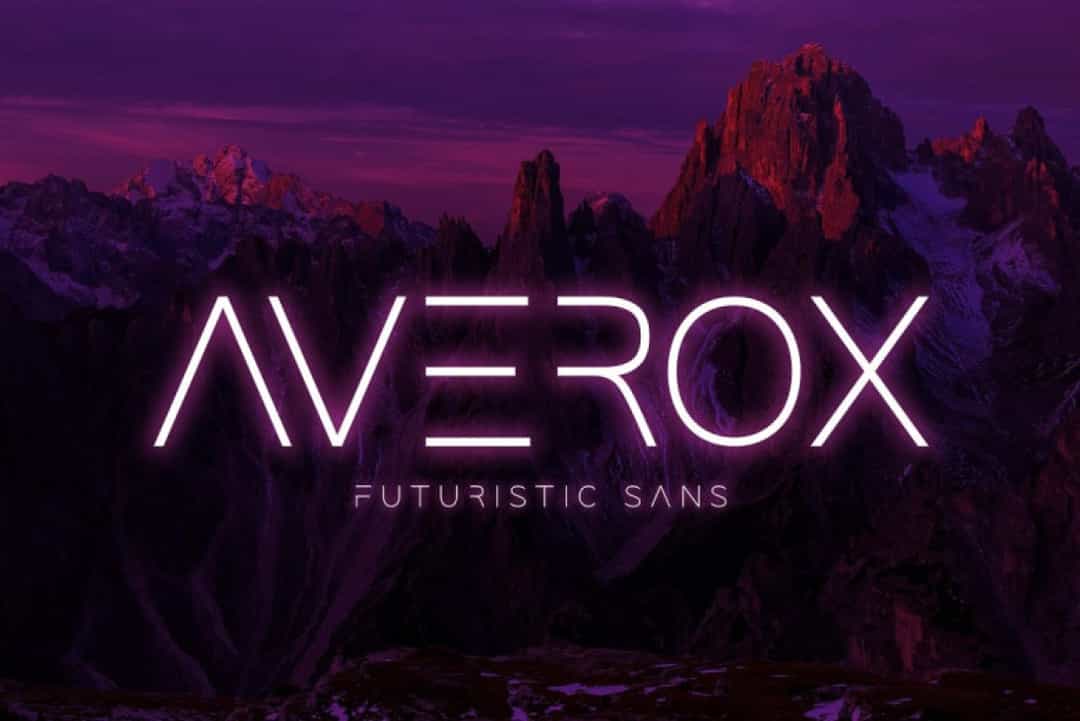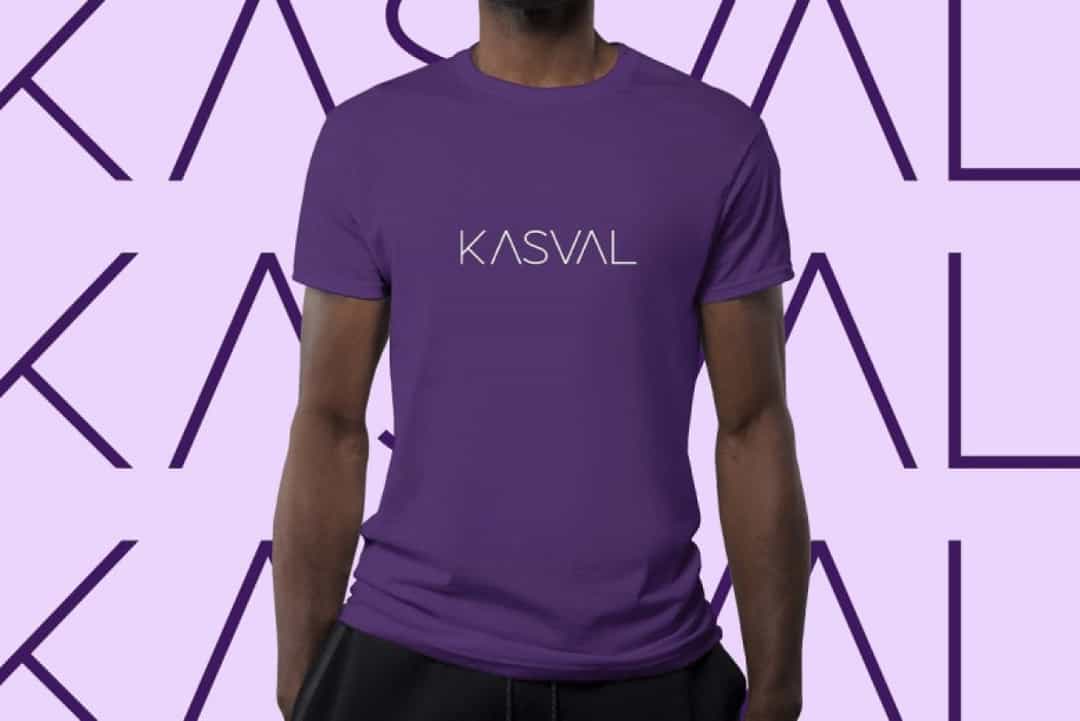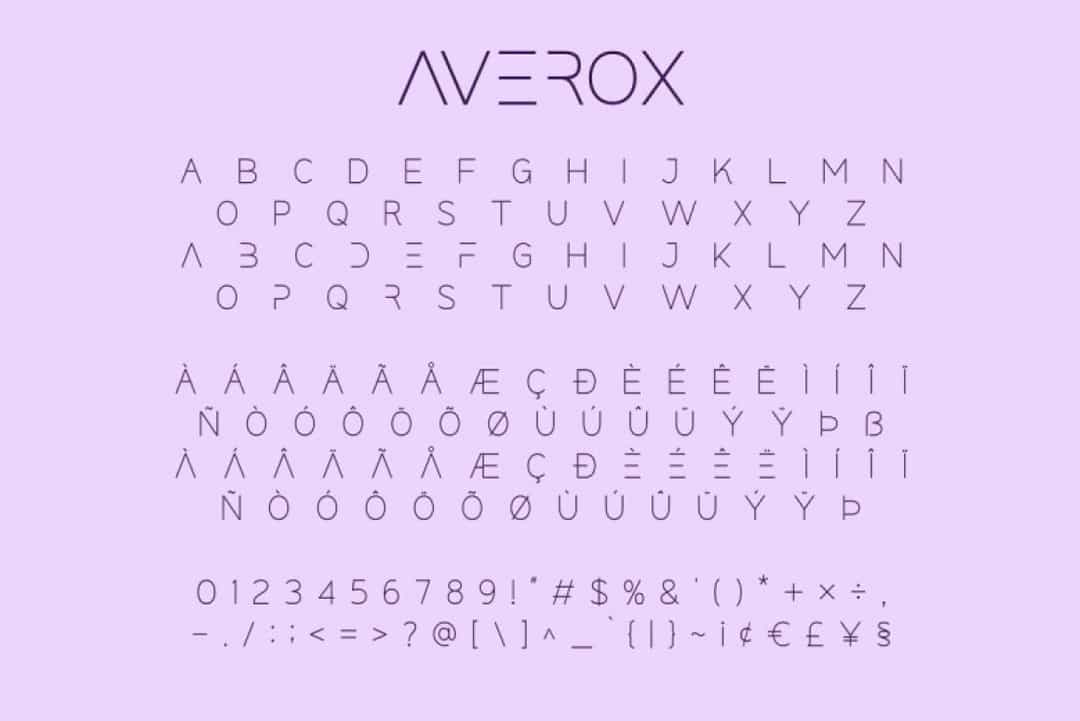
Averox Font is a futuristic Sans Serif typeface designed with a contemporary feel to evoke the iconic minimalist logo. Averox can be used in creating templates, brochures videos advertisements branding logos and much more.